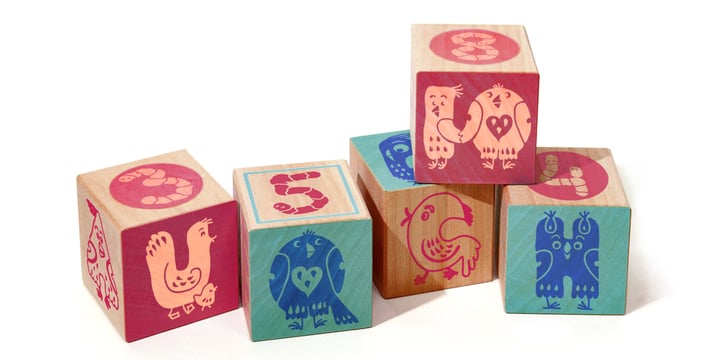
Foppish Birdie
Foppish Birdie by Natalie Thomson
Foppish Birdie Font Family was designed by Natalie Thomson and published by Natalie Thomson. Foppish Birdie contains 1 styles. More about this family
About Foppish Birdie Font Family
Foppish Birdie is a font family with character of birds that was inspired by the font Guakala by RodrigoTypo. Foppish Birdie - dynamic, cheerful, a special typeface for children's short titles and brands, containing the Cyrillic set. Take each letter and make game!
Designers: Natalie Thomson
Publisher: Natalie Thomson
Foundry: Natalie Thomson
Design Owner: Natalie Thomson